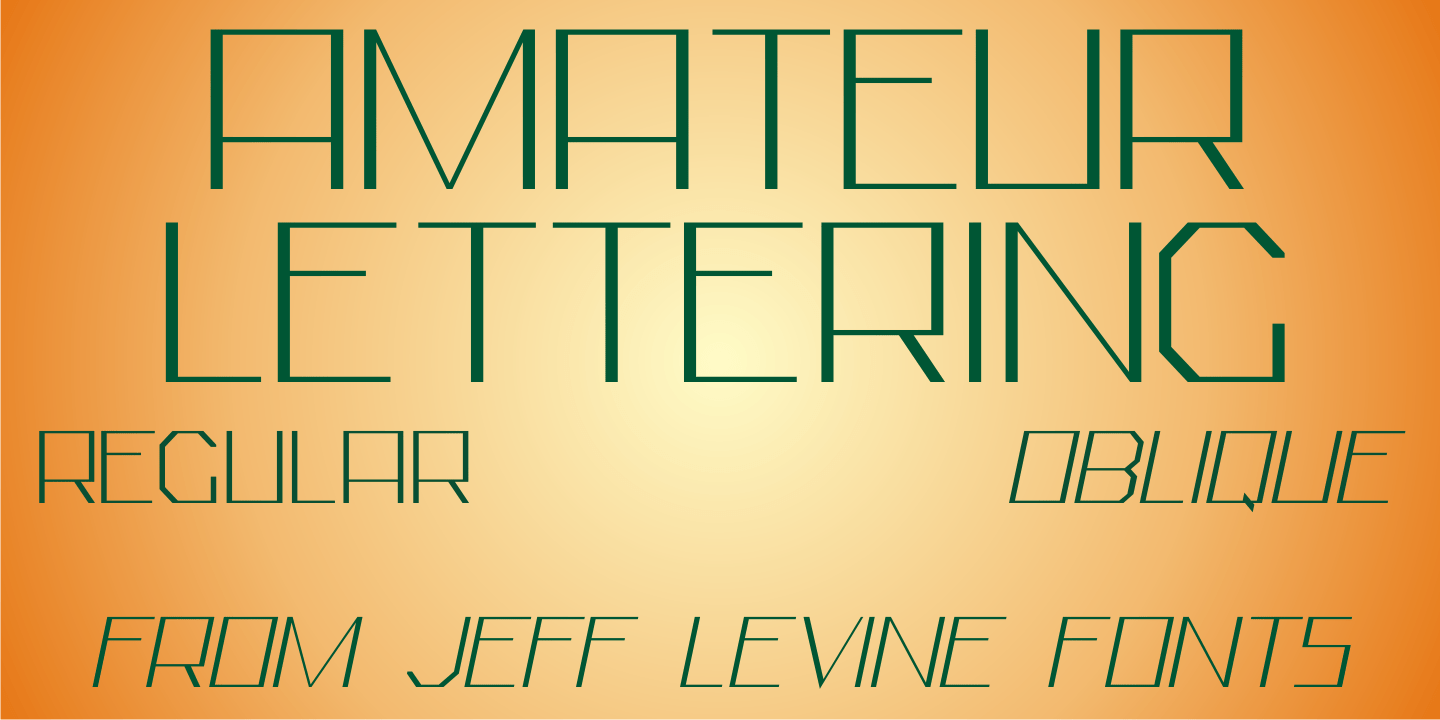
Amateur Lettering
From a vintage textbook on "modern" lettering circa the 1930s or 1940s comes a simple chamfered sans with oddly irregular shapes.
Amateur Lettering JNL is available in both regular and oblique versions.
Amateur Lettering JNL Oblique by Jeff Levine Fonts